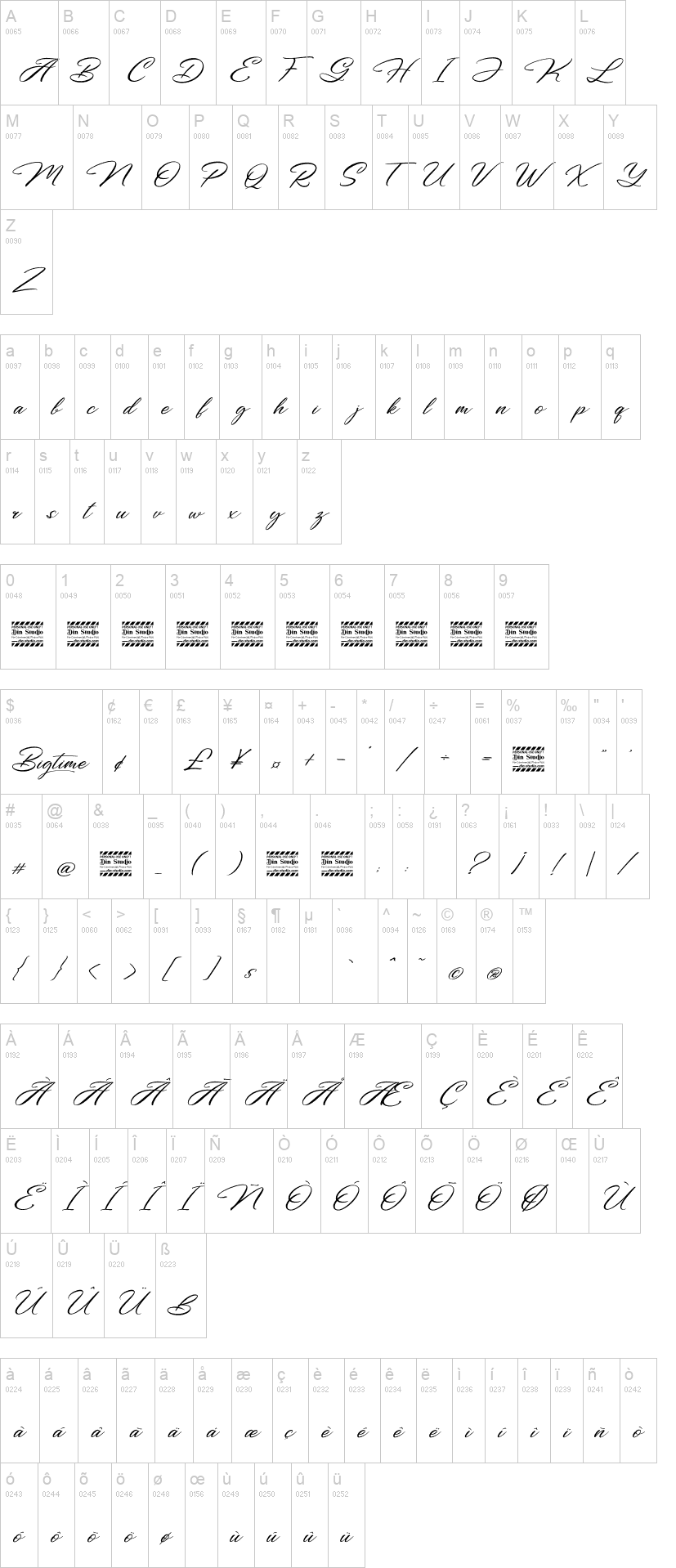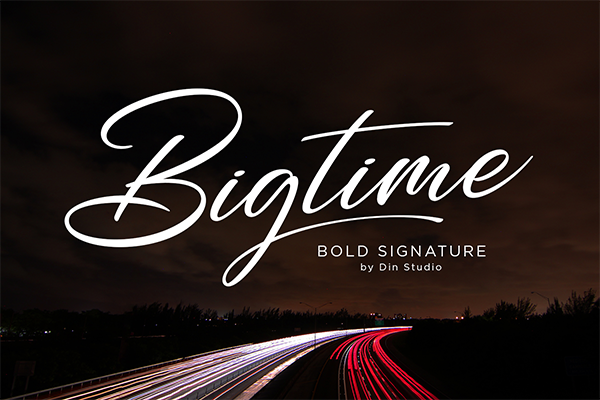
Hello! Are you looking for a bold signature? If so, Bigtime Script is the best choice. It presents with
natural, modern and luxury style.
Bold identity will give more value for your work, so you will need this for your branding.